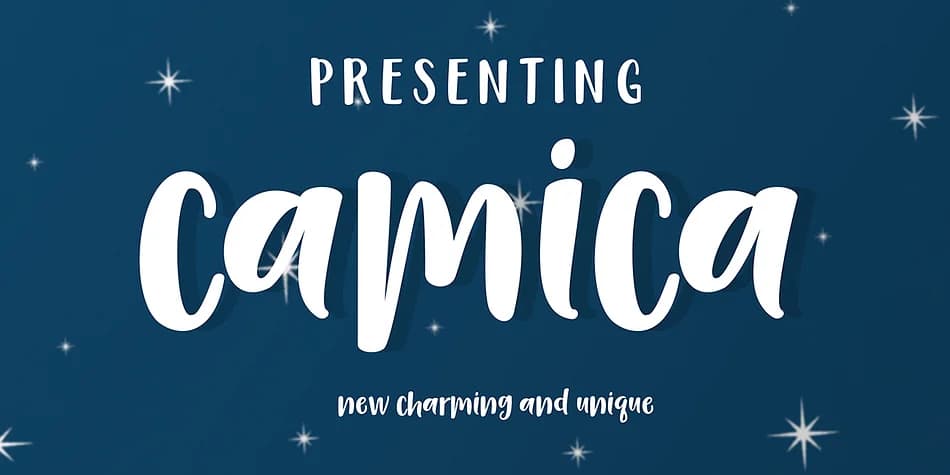
Picture yourself designing a wedding invitation suite that feels genuinely personal, like a close friend took the time to write it just for you. That warmth is exactly what Camica delivers. A playful script typeface created by Genesislab, it merges the authenticity of natural handwriting with a lighter, more comic sensibility that reads as handmade rather than precious.
This font excels across a range of celebratory projects where personality matters. Birthday party announcements gain energy and character when set in Camica. Graduation invitations feel thoughtful and human, like someone cared enough to letter them by hand. Greeting cards printed with this typeface read as carefully made rather than generic, and the same applies to gift tags, hand-lettered event signage, and wedding favor labels. Each use case benefits from the font's informal yet polished voice. You get a complete character set, including upper and lowercase letters, comprehensive punctuation, numerals, and solid multilingual support, so you're never hunting for missing glyphs or worrying about language compatibility.
Camica Font is a script font that shines as a display or heading face. Pair it with a clean sans-serif or serif font for body text β the contrast creates a clear hierarchy while the two styles stay balanced and easy to read.